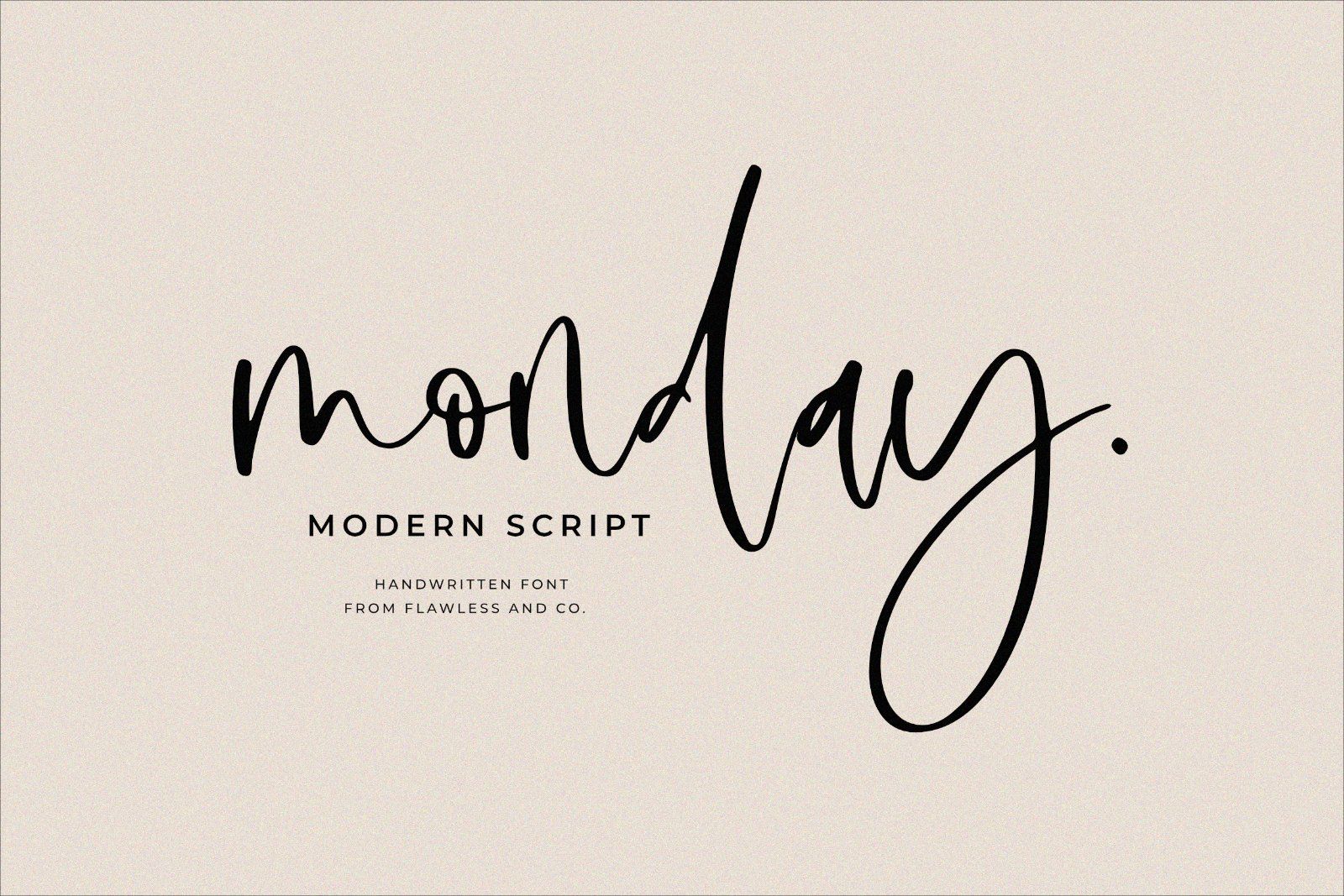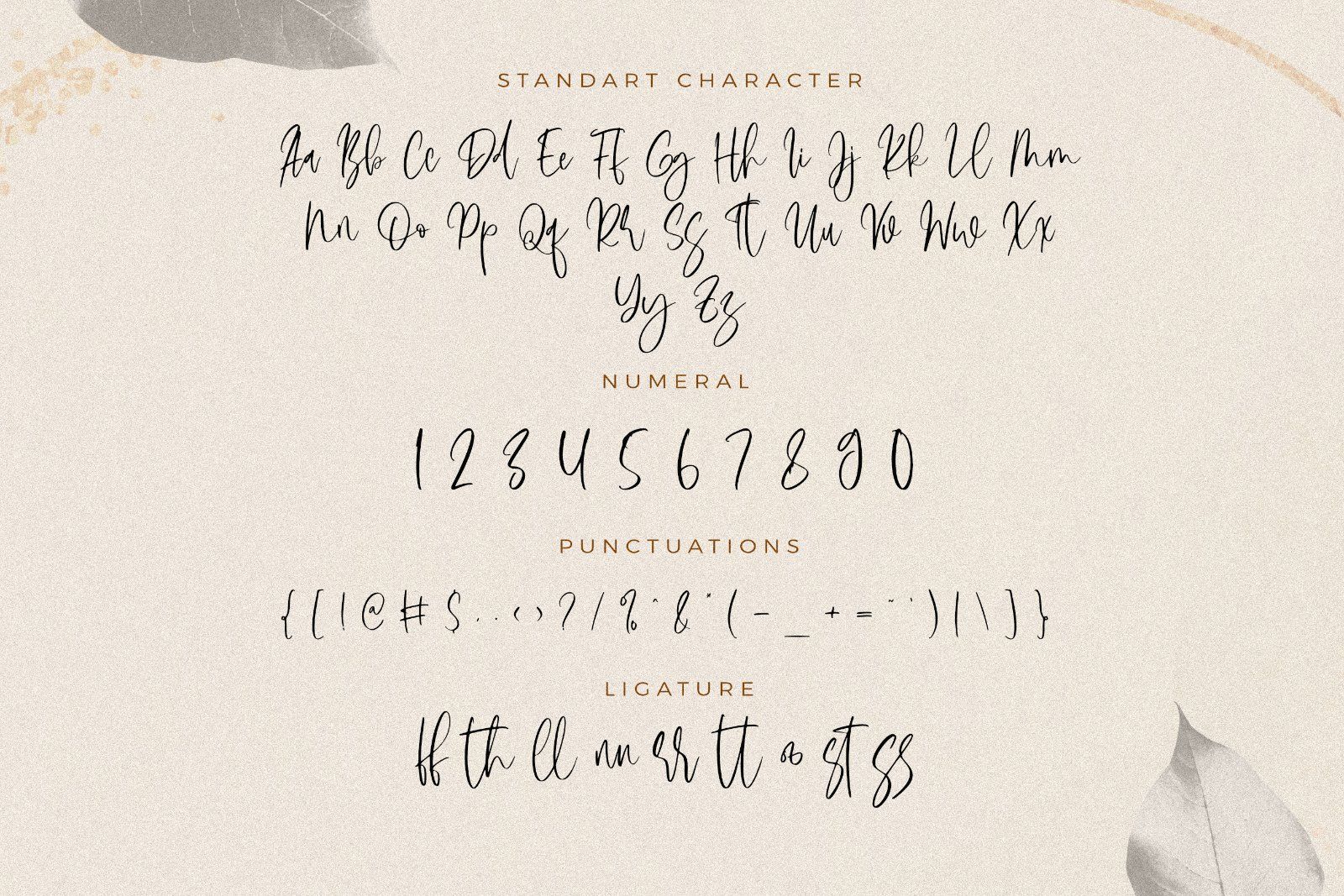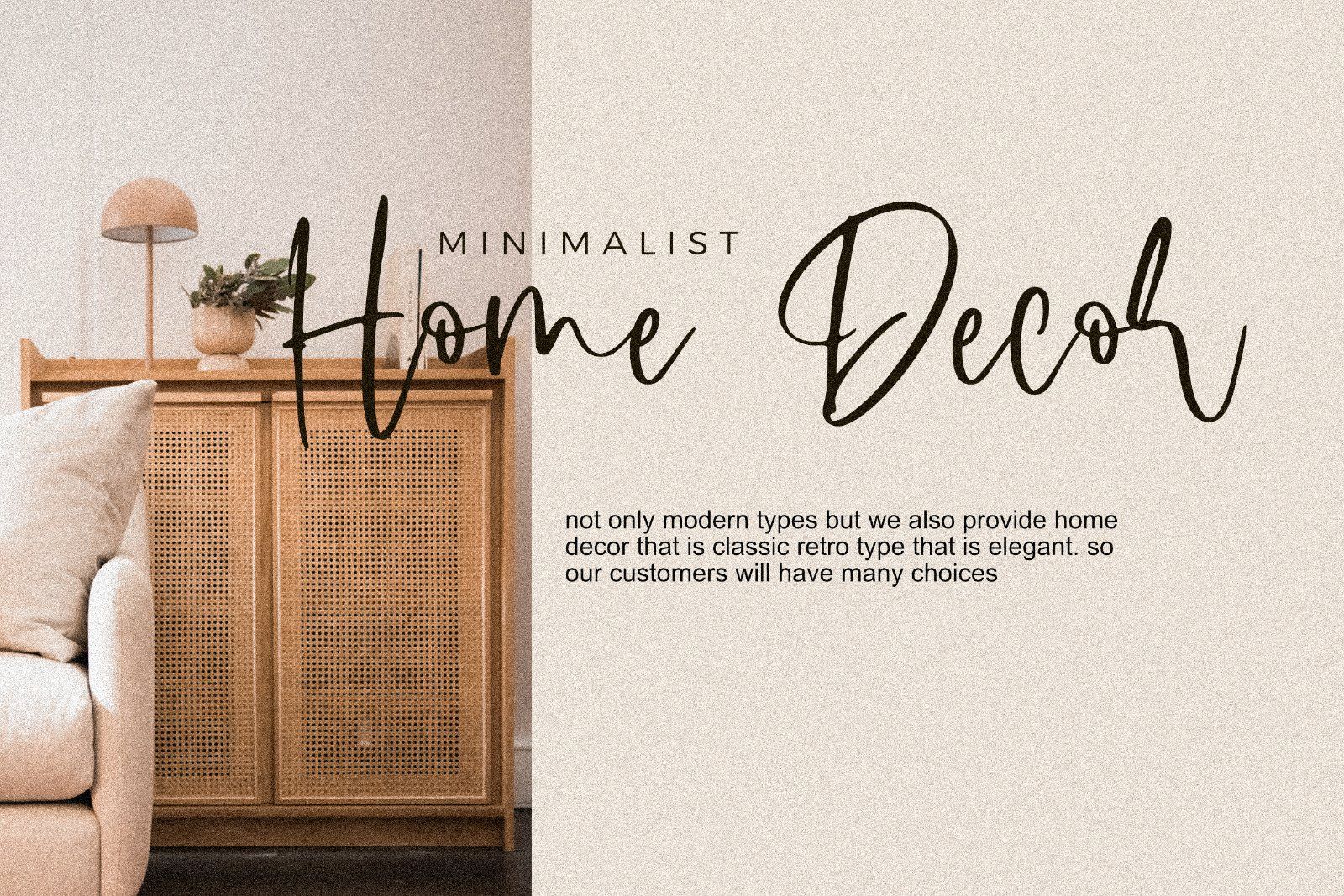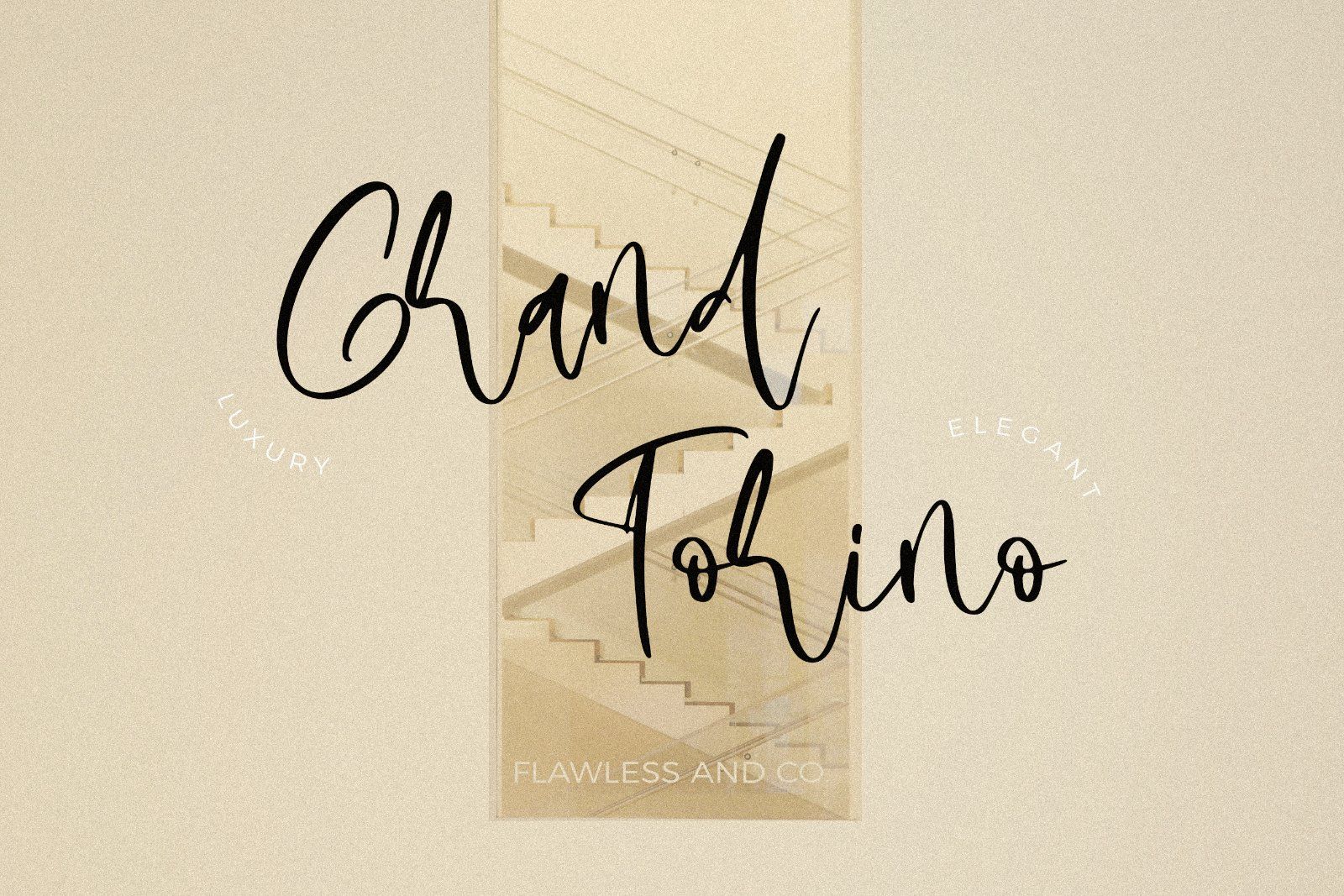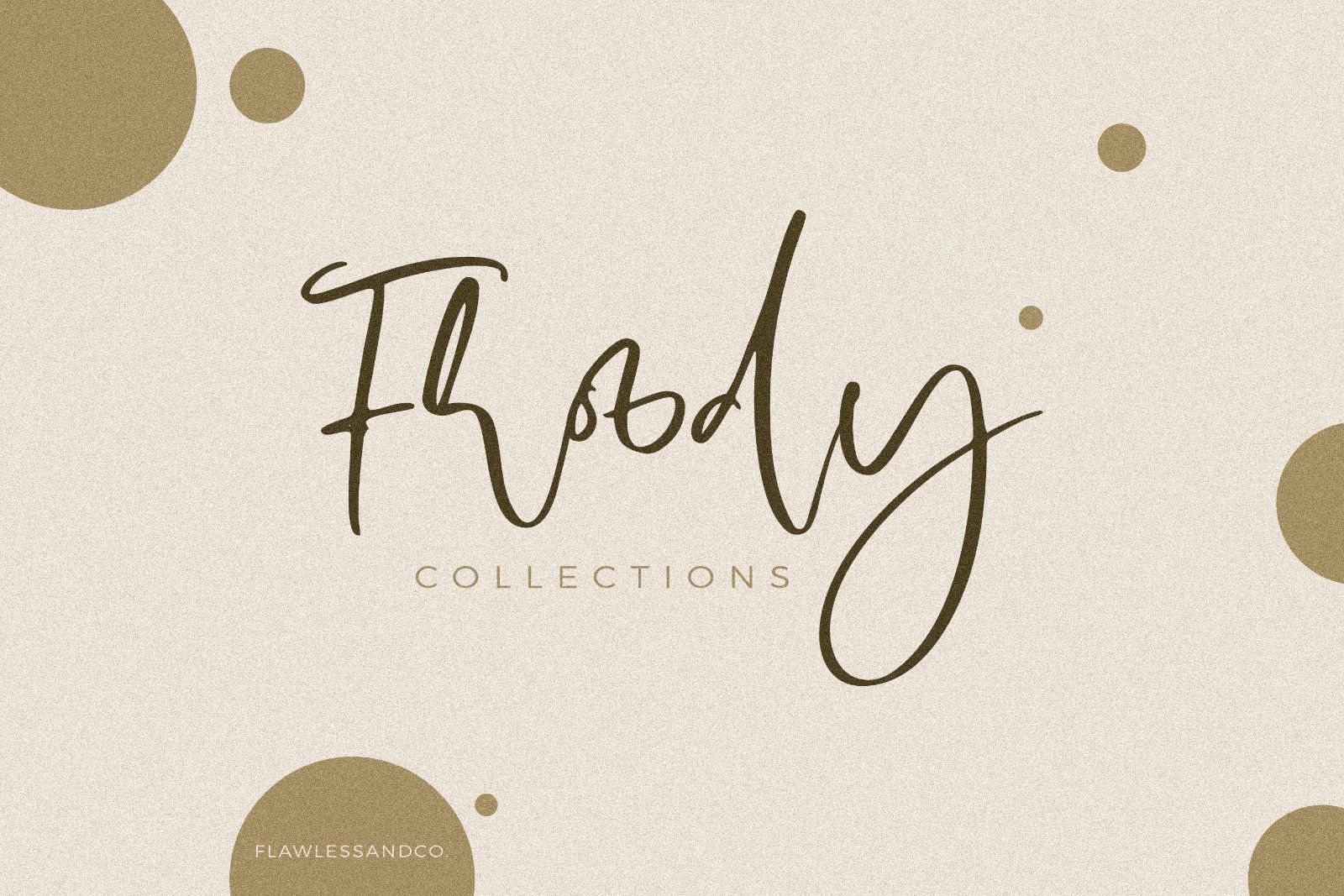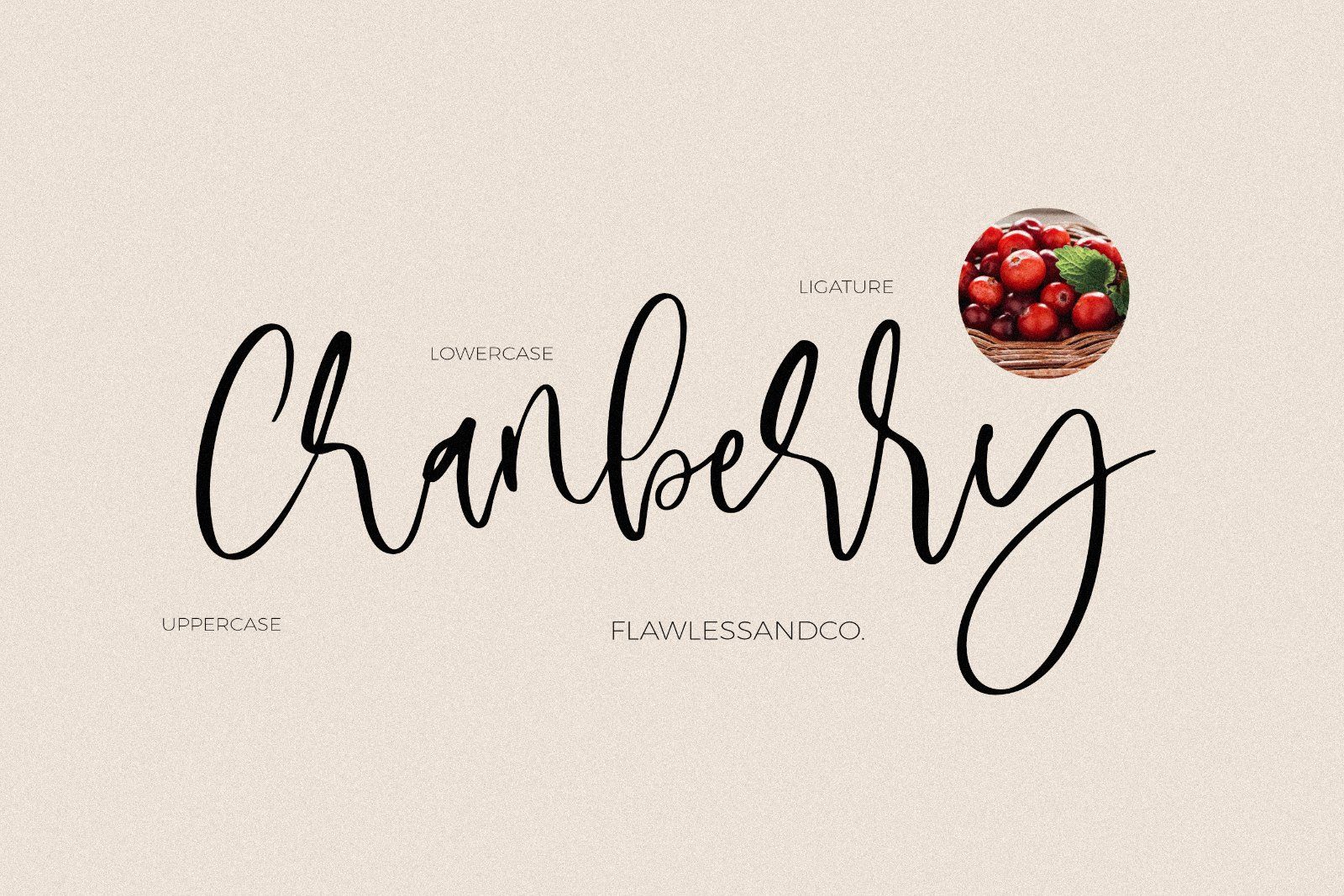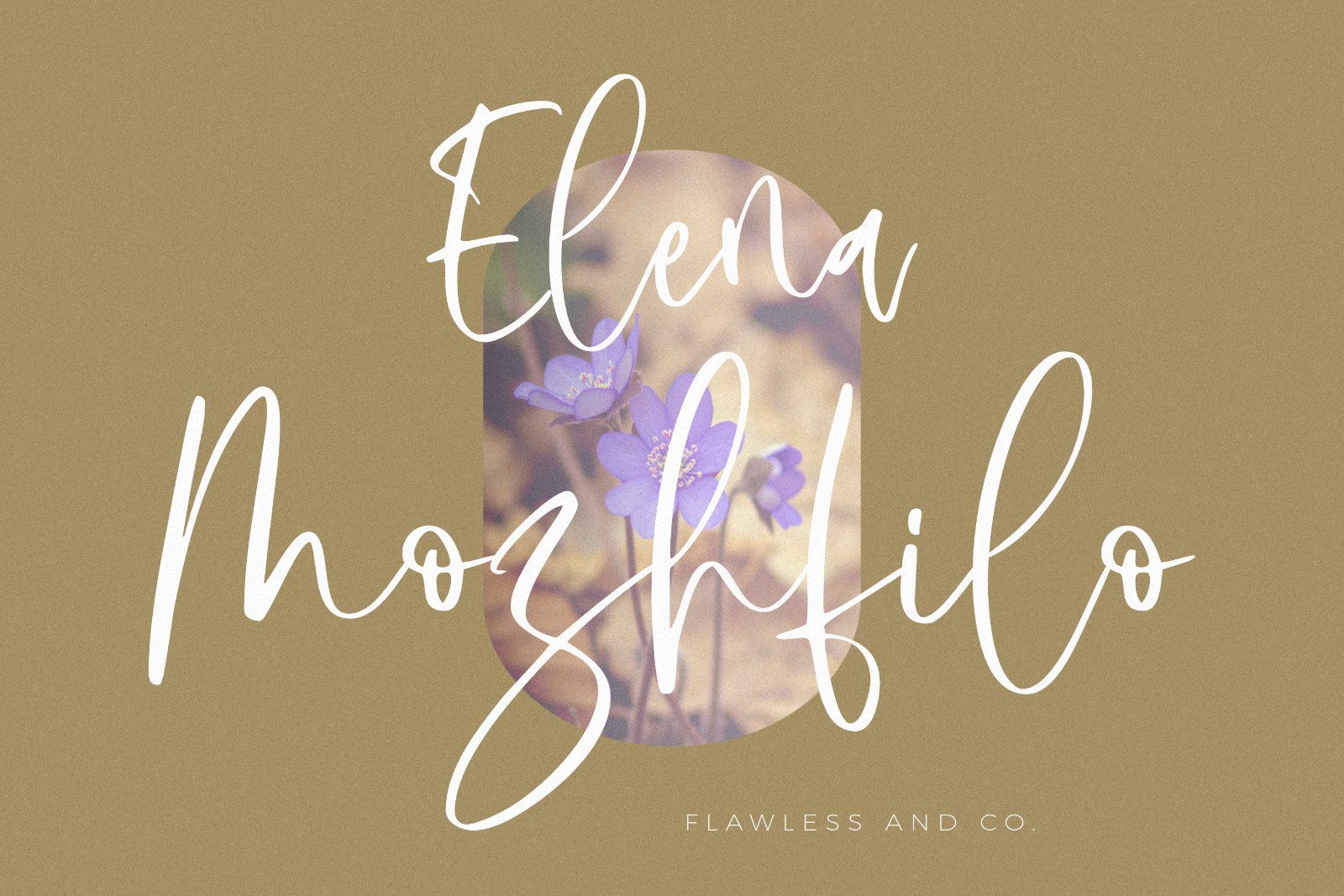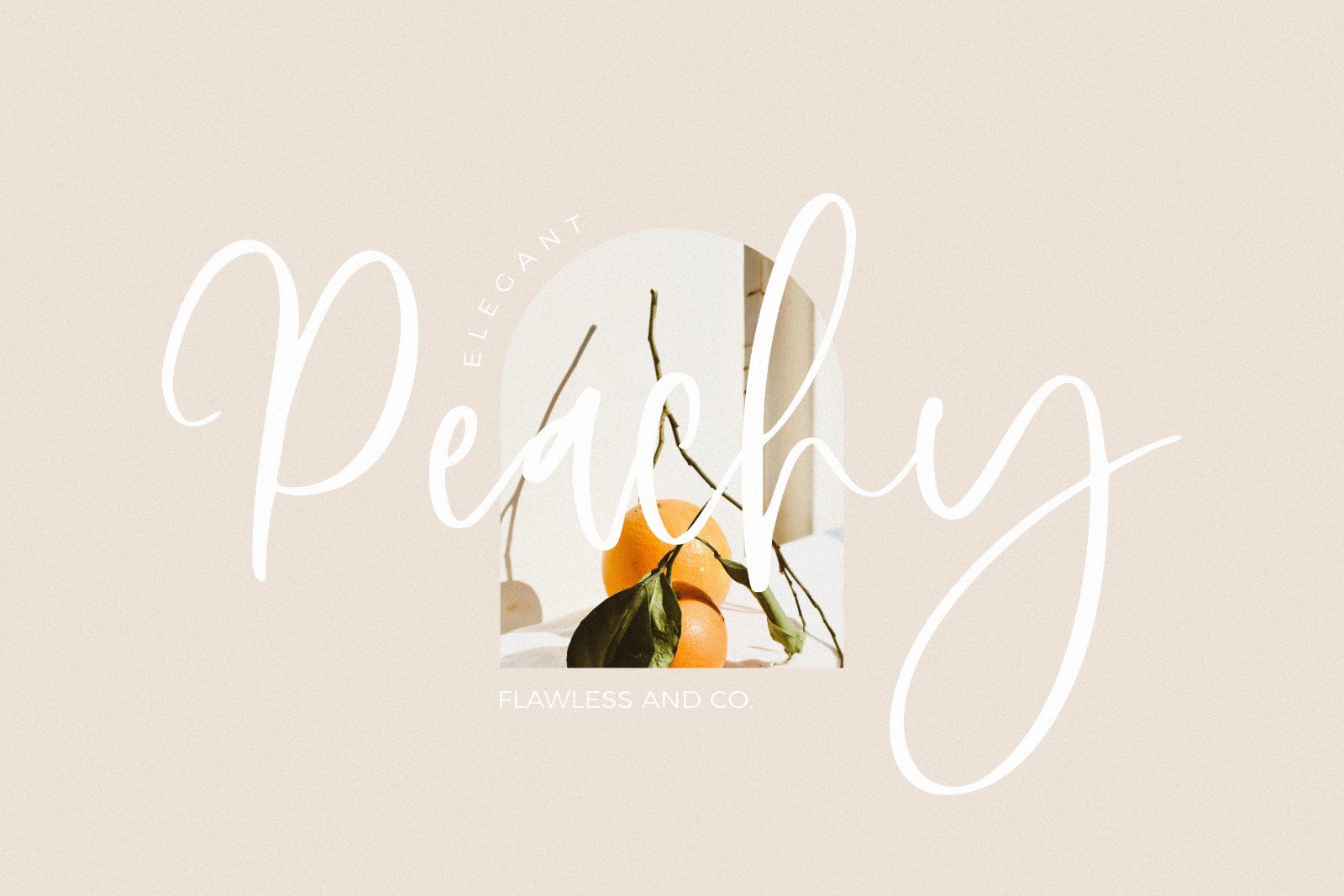
Monday is a charming handwritten font that combines natural strokes with a playful and expressive personality. Its smooth letterforms, flowing curves, and casual handwritten style create a warm and authentic look that feels both creative and effortless.
• Uppercase alphabet A-Z
• Lowercase alphabet a-z
• Alternate Character
• Numbers 0-9
• Some punctuation